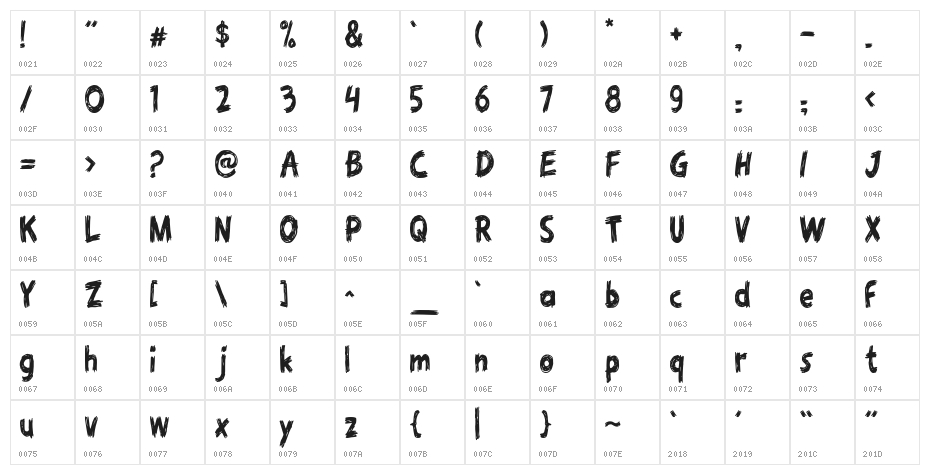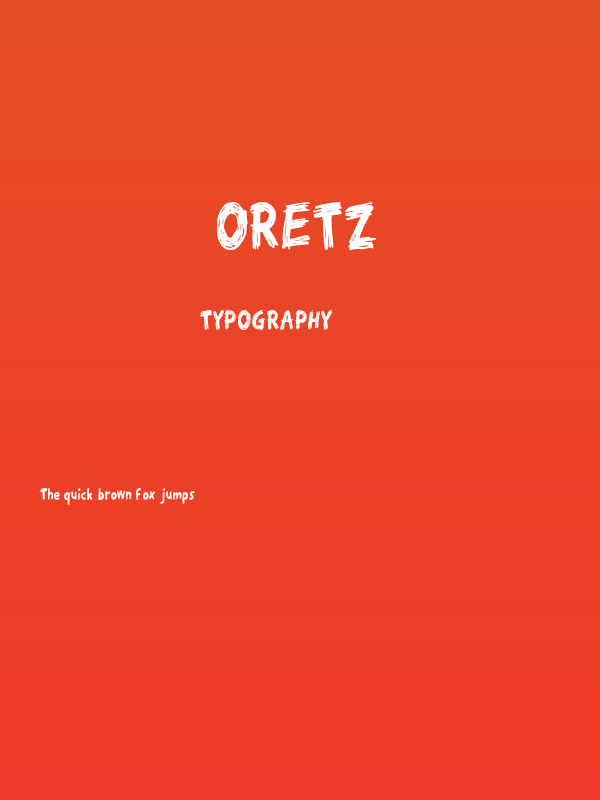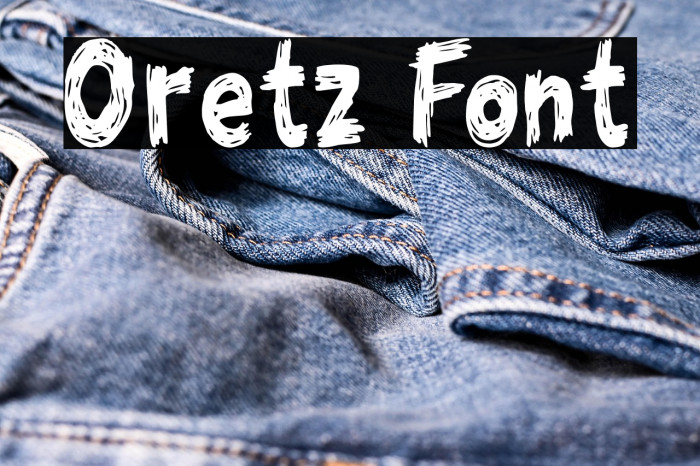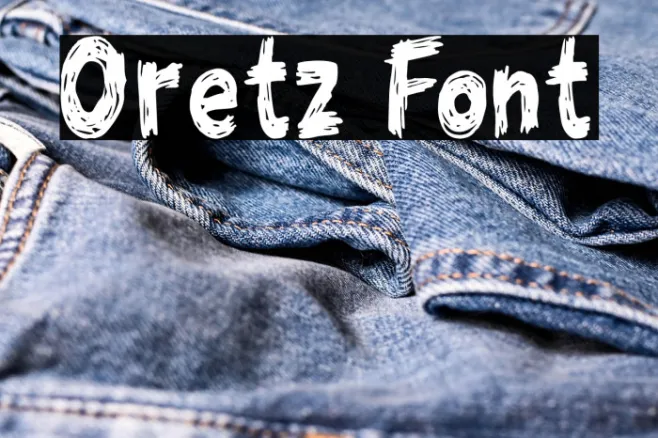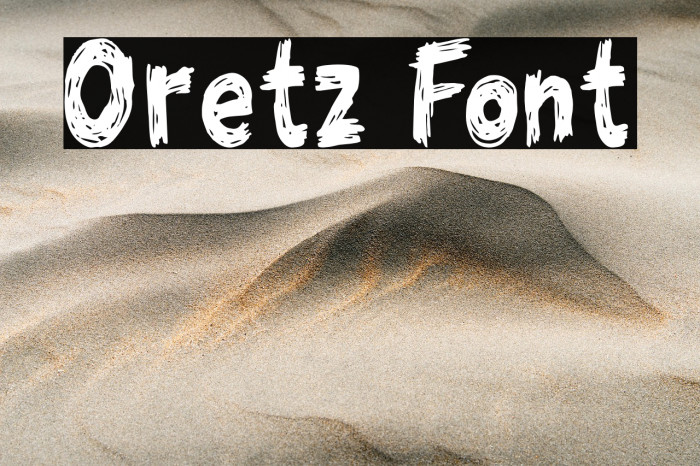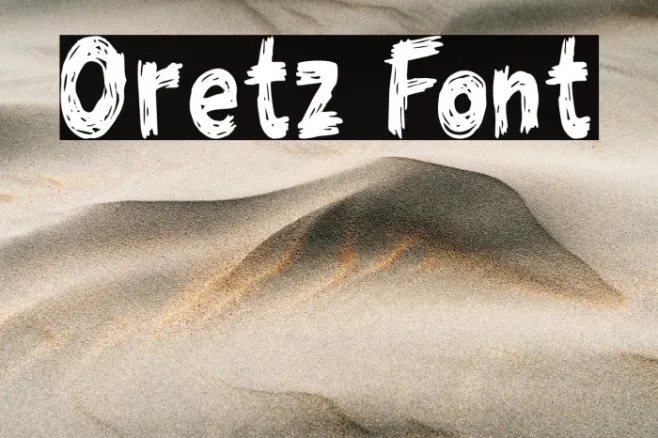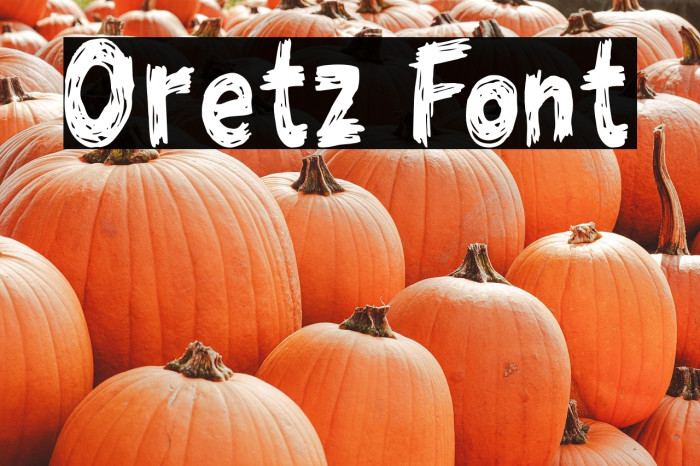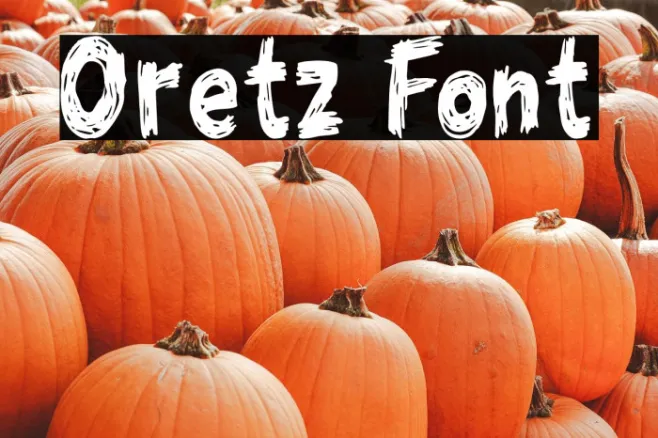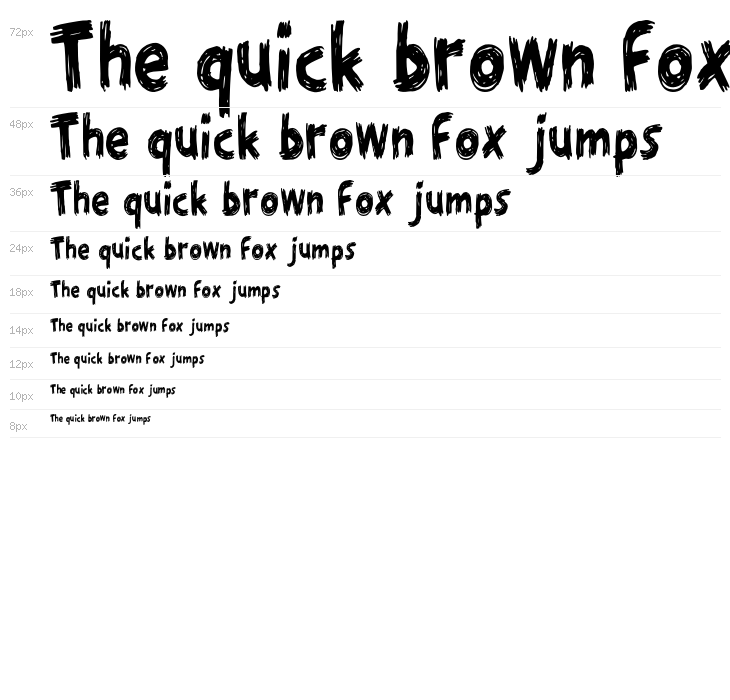
Oretz Font
Oretz Description
This font features a bold, brush-stroke style that gives it a dynamic and energetic appearance. The letters are irregular and have a hand-drawn feel, with varying thicknesses that add a sense of movement and spontaneity. The uppercase and lowercase letters maintain a consistent style, while the numbers and special characters complement the overall aesthetic. The rough edges and uneven lines contribute to a raw, artistic vibe, making it suitable for projects that require a touch of creativity and flair. Its unique style can capture attention and convey a sense of individuality.
ORETZ UPPERCASE
ORETZ LOWERCASE
ORETZ OTHER CHARS
| Overall Style | Artistic, Energetic |
| Proposed Projects | Ideal for posters, album covers, artistic branding, and creative advertising. |